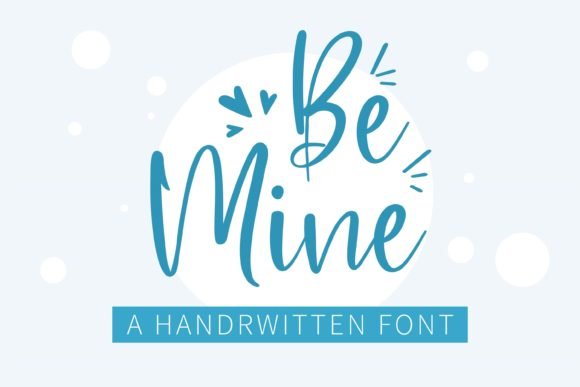
When Words Are the Perfect Gift
There’s something special about handwriting a love letter or a heartfelt thank you note. The personal touch, the imperfections, the love that shines through – it’s a feeling that’s hard to replicate with digital fonts. But what if you could capture that essence in a font that’s both delicate and refined?
Enter the Be Mine Font, a beautiful handwritten font designed to bring a touch of warmth and personality to your designs. Whether it’s a wedding invitation, a quote, or a logo, this font is perfect for adding a customized touch that speaks directly to your audience. For designers, the Be Mine Font is a valuable tool that can elevate any project and make it truly special.
Be Mine Font Key Features
- Font Family: Be Mine Font is a custom, hand-drawn font designed for Valentine’s Day and love-themed applications.
- Character Set: The font includes a wide range of characters, including uppercase and lowercase letters, numbers, and special characters, making it suitable for various design projects.
- Unique Characteristics: The Be Mine Font features a distinctive, cursive script with a playful and romantic feel, making it ideal for Valentine’s Day and love-themed designs.
Be Mine Font Review
I’ve had the chance to work with “Be Mine Font” on a recent project, and I have to say it’s a mixed bag. ✨ The first thing I noticed was how well the font handled the emotional nuances of the project – it’s perfect for Valentine’s Day or any other occasion where you want to convey love and affection. The font’s playful, cursive design makes it a great choice for wedding invitations, greeting cards, or social media posts.
One of the things I appreciate about “Be Mine Font” is its versatility. ✨ It’s available in a range of styles, from bold and dramatic to delicate and whimsical. This makes it easy to find a version that fits your design aesthetic.
- ⚠️ The font can be a bit too sweet for some designs. It’s perfect for romantic occasions, but might not be the best choice for more serious or professional projects.
- ⚠️ The font’s cursive design can make it difficult to read in certain contexts, such as body text or headlines in small sizes.
Overall, I’d say “Be Mine Font” is a solid choice for designers who need a font that’s perfect for romantic or playful projects. While it may not be the most versatile font out there, it’s definitely a great addition to any designer’s toolkit.
The “Be Mine Font” is commonly used for:
- Romantic invitations and greeting cards.
- Valentine’s Day designs and graphics.
- Wedding invitations and decorations.
- Anniversary and birthday celebrations.
Is the Be Mine Font suitable for use at small font sizes?
The Be Mine Font is designed to be highly legible at a variety of font sizes. However, for optimal readability, we recommend using font sizes of 12 points or larger. At smaller font sizes, the font may become less clear, but it should still be legible for most users.